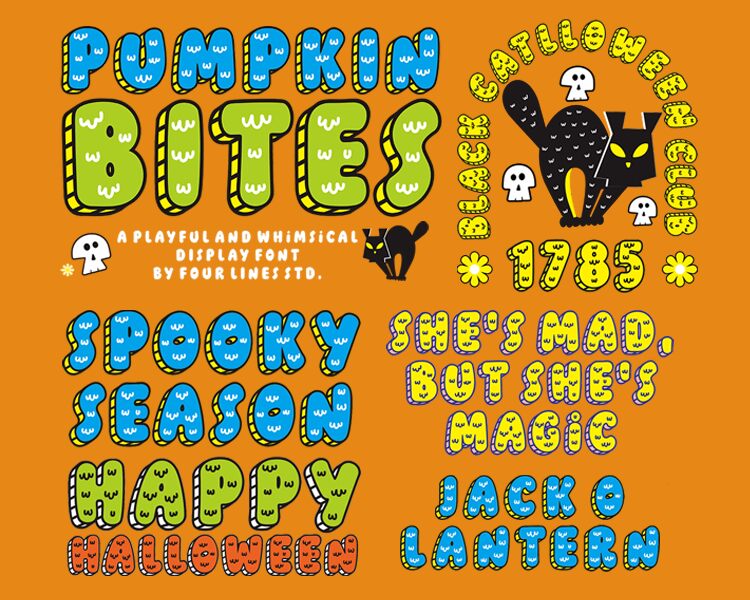
Pumpkin Bites
Pumpkin Bites font by Four Lines is a whimsical display type with a playful mood and an illustrative design. It is decorative textured cartoon letters, all written in bold weight for maximum visibility. The festive character style of the font makes it perfect for fall holidays, including Halloween and Thanksgiving.
Harvest this free cartoon display font into your arts and crafts projects, children’s book designs, decorations, party invitations, posters, postcards, website designs or redesigns, coupons and catalog covers. It can also be used for branding papers of kindergartens or preschools.